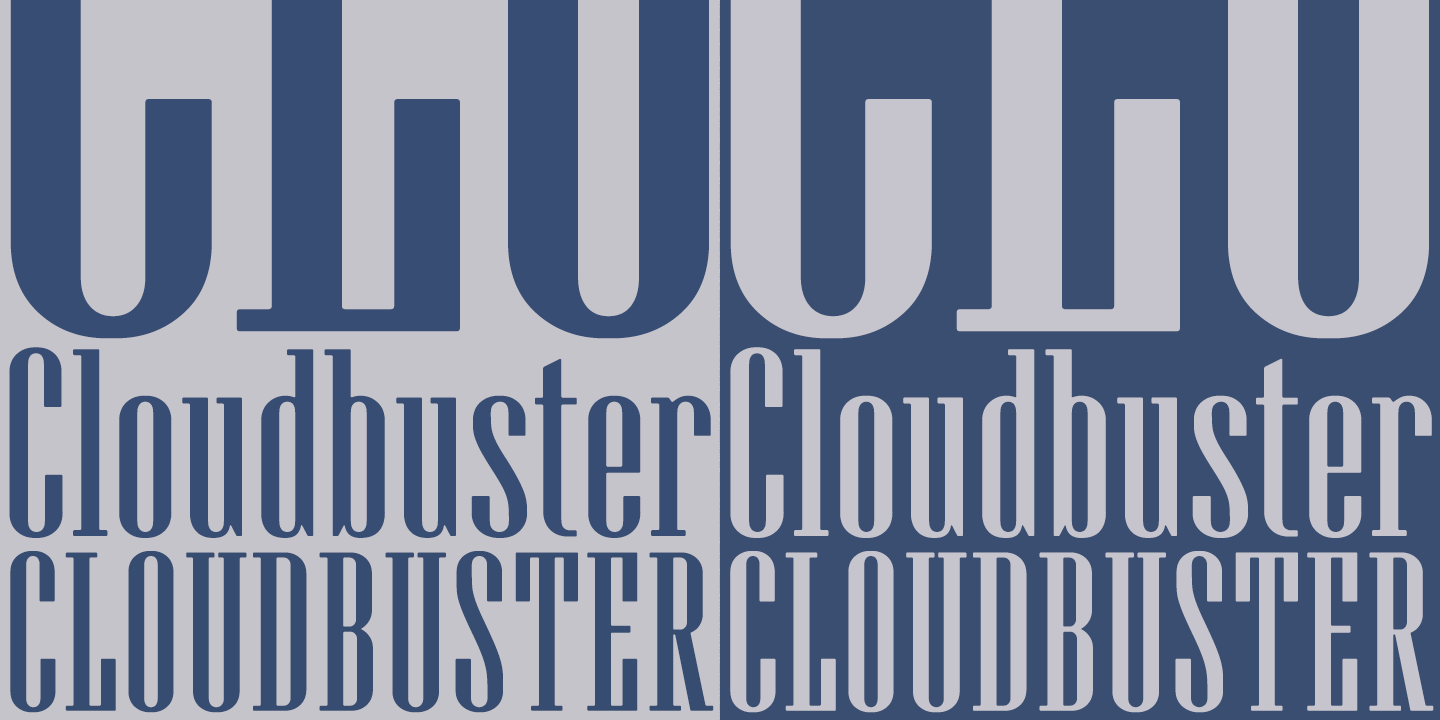
Take your designs to new heights with Cloudbuster Font Free Download – a bold, aviation-inspired typeface that combines vintage flight instrument aesthetics with modern readability. This commanding display font features technical letterforms with subtle aerodynamic curves, perfect for projects needing adventurous spirit and mechanical precision.
Why Cloudbuster Font Soars
Cloudbuster Font Free Download delivers:
Authentic aircraft gauge-inspired letterforms
Perfect balance of technicality and approachability
Excellent visibility at display sizes
Versatile applications from retro to contemporary
Cloudbuster Font Free Download Technical Features:
Uppercase characters with aviation precision
Includes alternate technical glyphs
Optimized for large-scale applications
High-Flying Applications:
Aviation/airline branding
Travel and adventure promotions
Engineering/tech interfaces
Vintage poster designs
Outdoor/sporting gear packaging
Design Tip: Layer with subtle radial gradients and metallic textures for authentic instrument panel appeal!